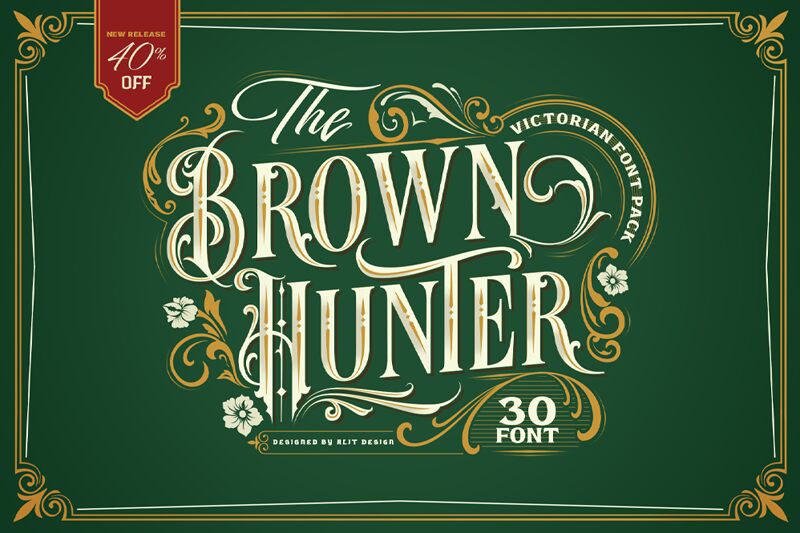
Brown Hunter Vic Regular
Meet Brown Hunter Vic Regular, a retro-inspired font from Alit Design. With its extra-condensed width and bold presence, this display typeface is perfect for vintage-themed projects that require a touch of nostalgia.
Use it to create eye-catching logos, posters, or packaging designs that will transport your audience back in time. The unique combination of classic letterforms and modern flourishes makes Brown Hunter Vic Regular a versatile choice for any creative endeavor seeking to capture the essence of the past.